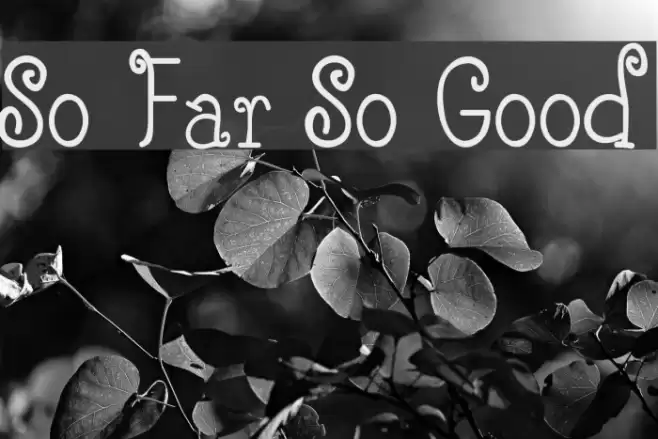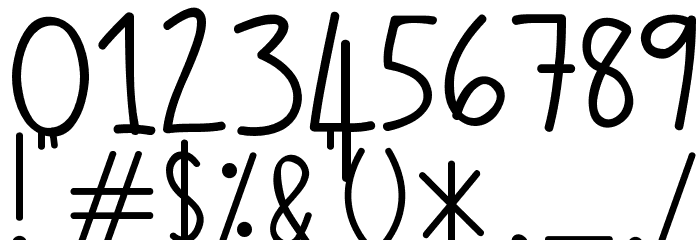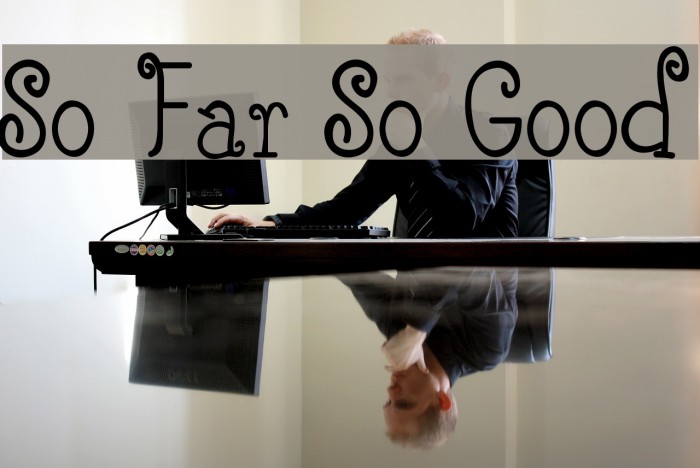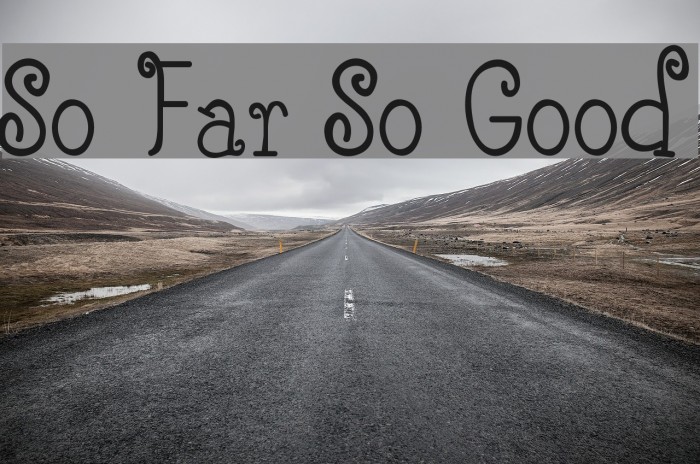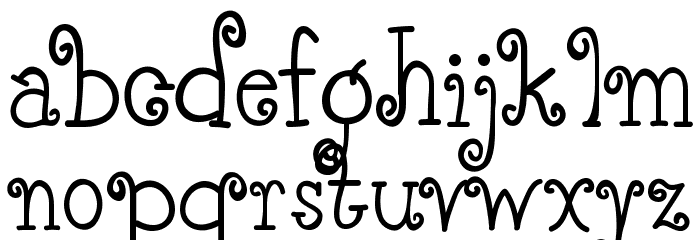
So Far So Good Font
So Far So Good Description
This whimsical and playful font features curly, decorative serifs that give it a lively and energetic feel. The characters are uniquely designed with swirls and loops, creating a sense of movement and fun. The uppercase letters are bold and prominent, while the lowercase letters maintain a consistent style with slightly exaggerated curves. The numbers and special characters follow the same playful theme, making the font cohesive and visually appealing. Its distinct style makes it suitable for creative and informal projects, adding a touch of personality and charm.
A whimsical, curly serif font with playful and decorative elements from Uncategorized fonts.
- Proposed Projects: Ideal for children's books, greeting cards, playful branding, and creative invitations.
- Overall Style: Playful, Whimsical
- Use Case: Headlines, Logos, Creative projects